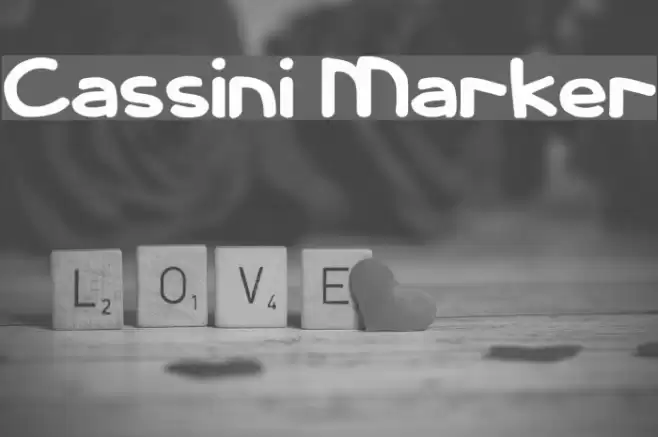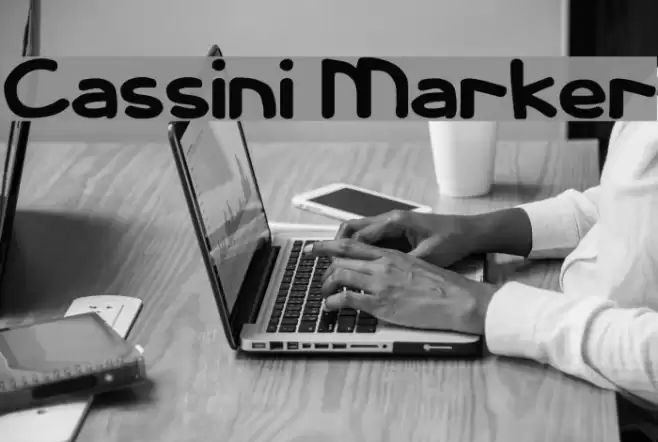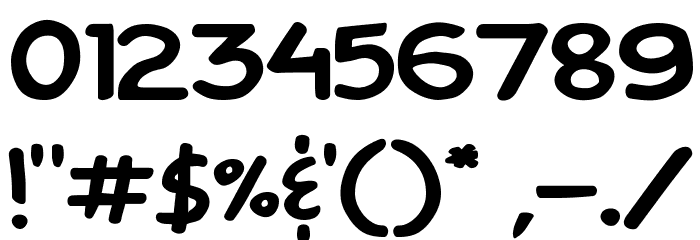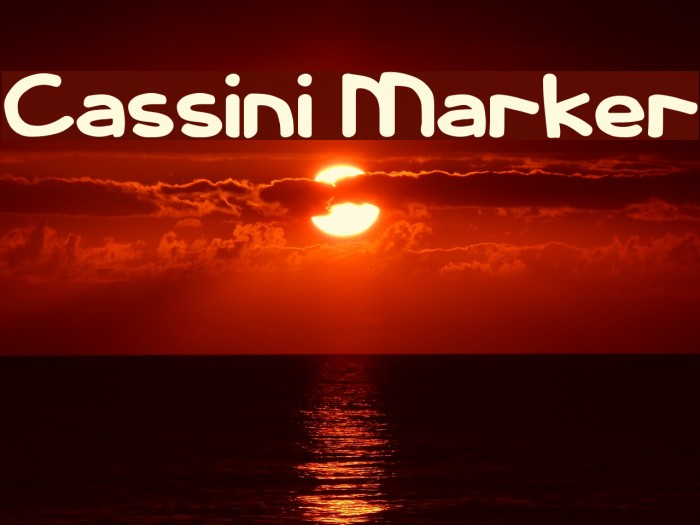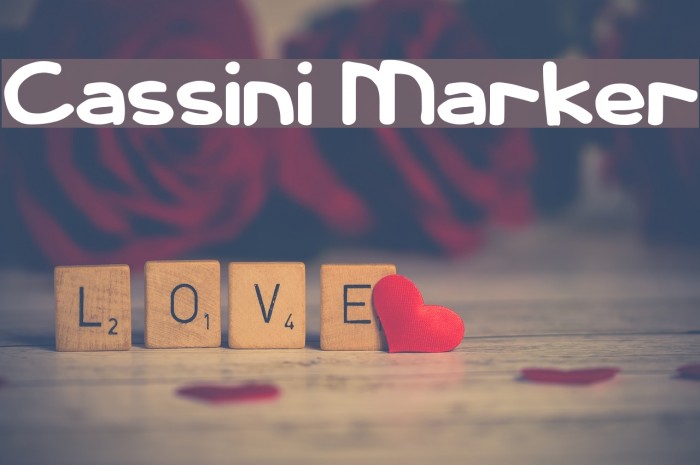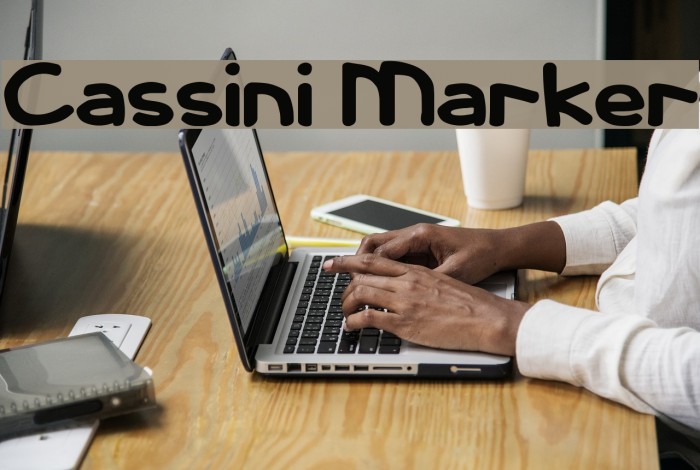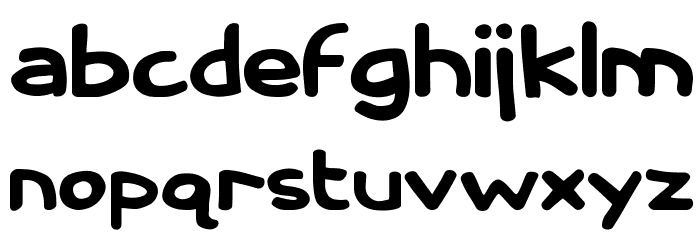
Cassini Marker Font
Cassini Marker Description
This font features a playful and rounded design, characterized by its bold and smooth curves. The letters have a hand-drawn appearance, giving them a casual and friendly feel. The uppercase and lowercase letters maintain a consistent style, with slightly exaggerated curves and a uniform thickness throughout. The numbers and special characters follow the same design principles, ensuring a cohesive look across all elements. This font's unique style makes it suitable for projects that require a fun and approachable aesthetic.
A playful, rounded font with a hand-drawn, casual style from Handwritten fonts.
- Proposed Projects: Ideal for children's books, playful branding, casual invitations, and creative posters.
- Overall Style: Playful